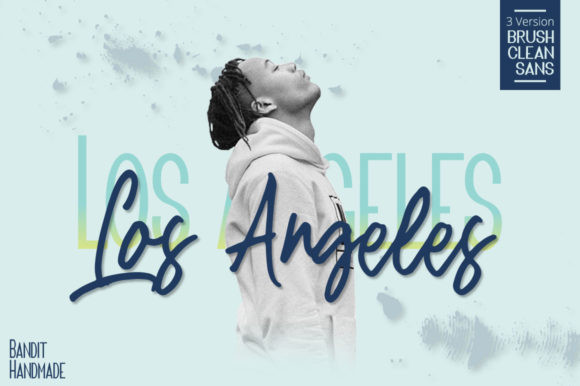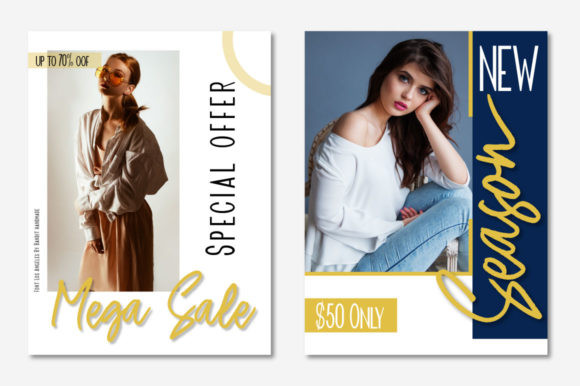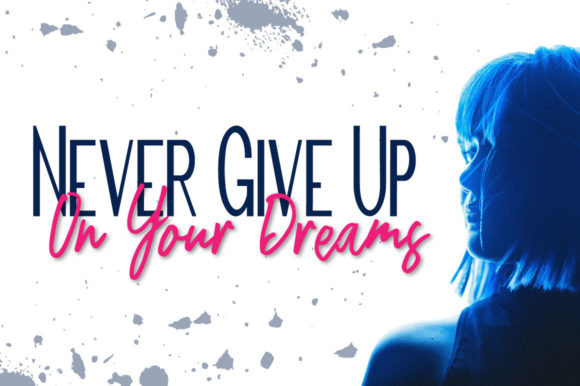
Los Angeles Font
Los Angeles duo is a match made in heaven, the authentic letters of the script perfectly complement the sans serif’s style. Combining these two fonts on your next design will give your next design a sophisticated and fancy feel.